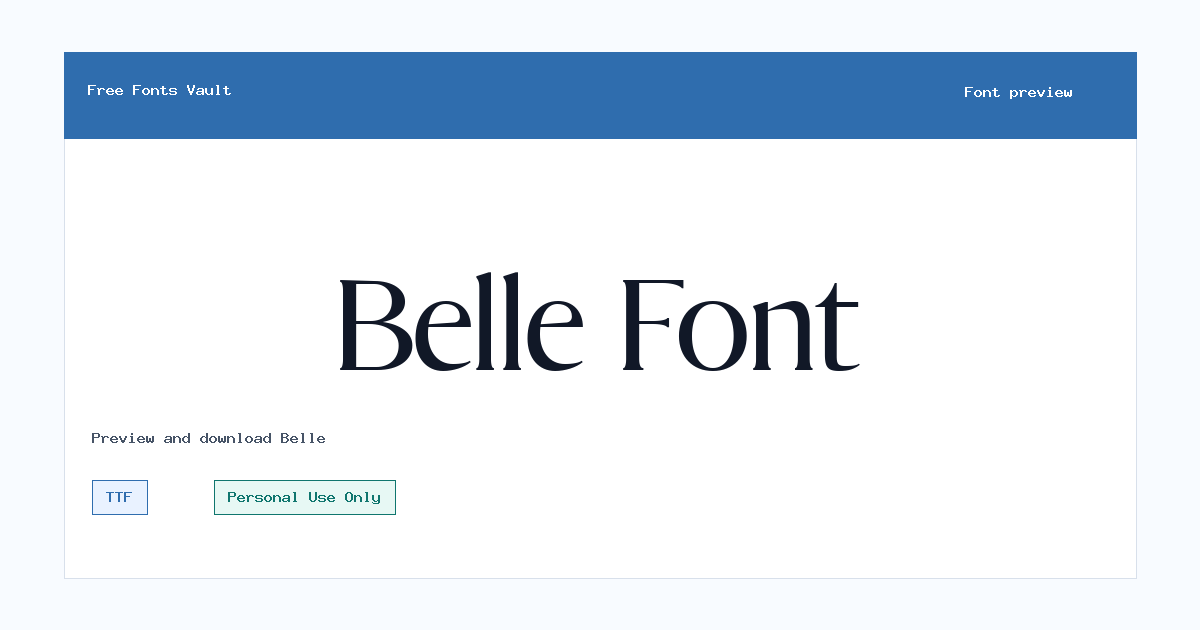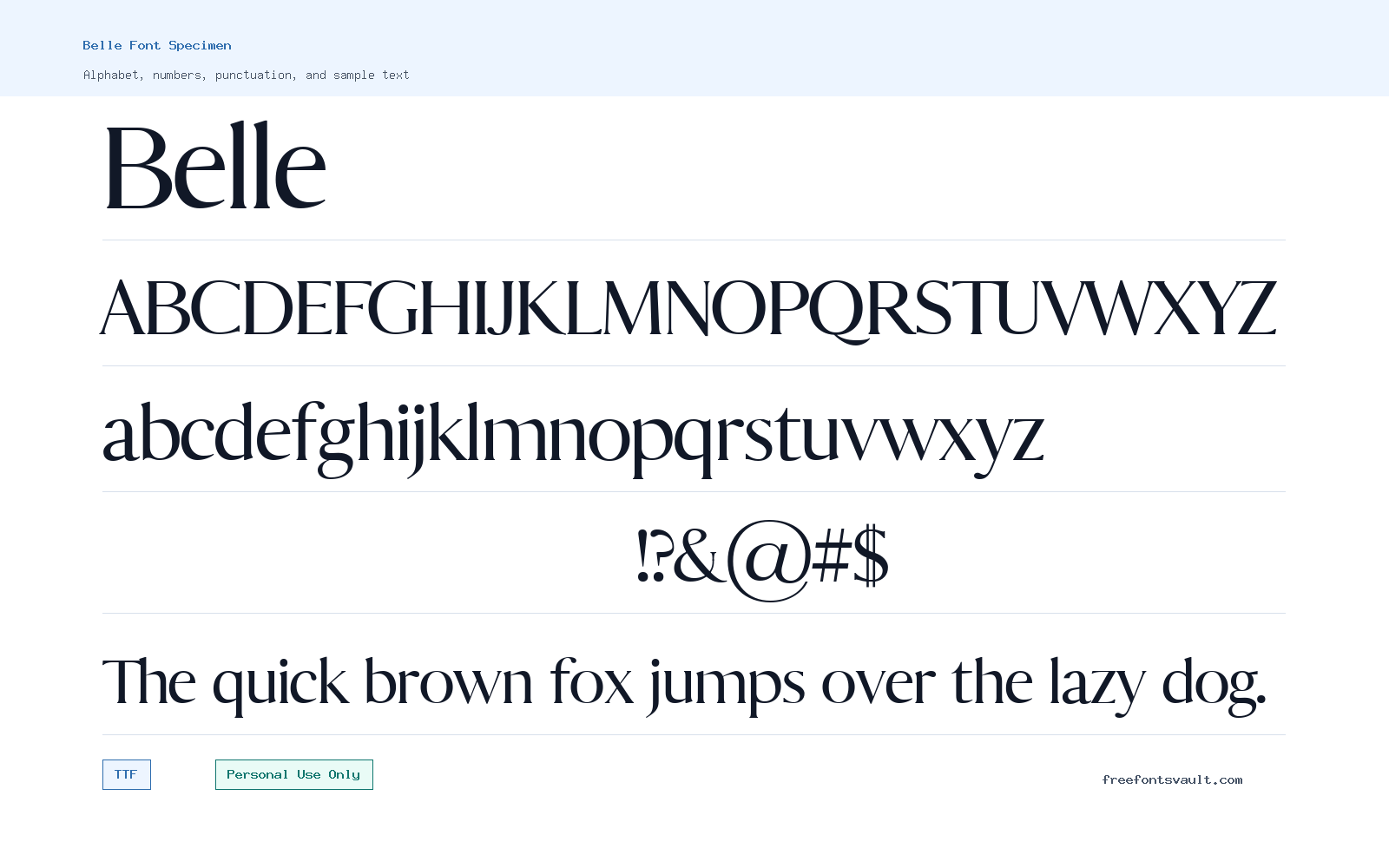
Belle
Belle is a regular-weight serif font with tall contrast, fine details, and a polished look that works best when the text is allowed to breathe.
Belle has a refined serif style with strong thick-to-thin contrast, rounded letter shapes, and delicate terminals. In larger sizes, the font shows its character clearly: the capital letters feel formal, the lowercase has smooth curves, and the spacing gives words an elegant rhythm. It is better suited to display settings than dense reading, because the thin strokes and close details can lose clarity when used too small.
Use Belle when you want a graceful serif voice for short pieces of text. It can work well for invitation headings, boutique-style logos, quotes, name cards, social graphics, editorial titles, and simple branding mockups. Before downloading, try your own words in the preview box, especially if the design uses all caps, long names, or numbers. For body copy, pair it with a clean sans serif or a quieter text serif so Belle can stay focused on the headline or accent line.
- High-contrast serif letterforms with a polished display feel
- Best for headings, quotes, invitations, and other short text
- Readable at larger sizes, but thin details need care at small sizes
- Wedding invitations and event headings
- Elegant logos, name marks, and boutique branding drafts
- Quote graphics, social posts, and editorial title layouts
- Short display text where a refined serif tone is needed
Keep Belle at medium to large sizes so the fine strokes remain clear. Avoid using it for long paragraphs or tiny labels. If a layout feels too delicate, increase the size, add more spacing, or use Belle only for the main title while another font handles supporting text.
What style of font is Belle?
Belle is a serif font with strong contrast between thick and thin strokes. It has an elegant display look that is most useful for short text.
Can I use Belle for body text?
It is not the best choice for long body text. The thin details are easier to read in headings, names, quotes, and other larger display settings.
What should I pair with Belle?
Pair it with a simple sans serif for menus, captions, descriptions, or longer text. This keeps the page readable while Belle adds style to the main words.